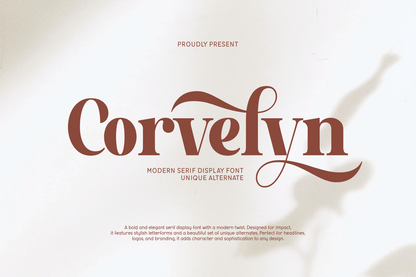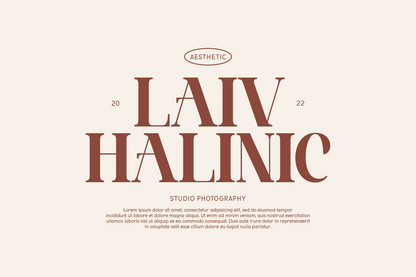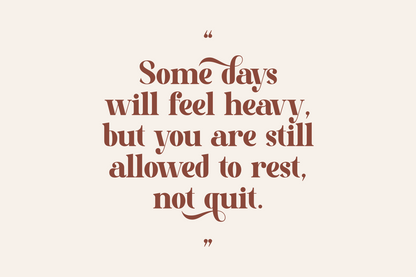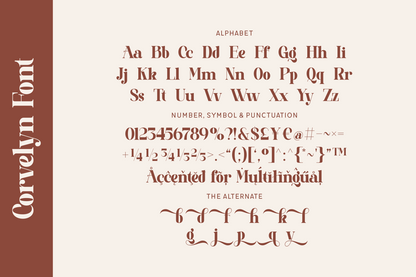
Corvelyn is a bold serif display font with high-contrast strokes and dramatic alternates that infuse personality into every letter. Ideal for logo designs, fashion branding, and sophisticated editorial layouts, it delivers instant style and impact.